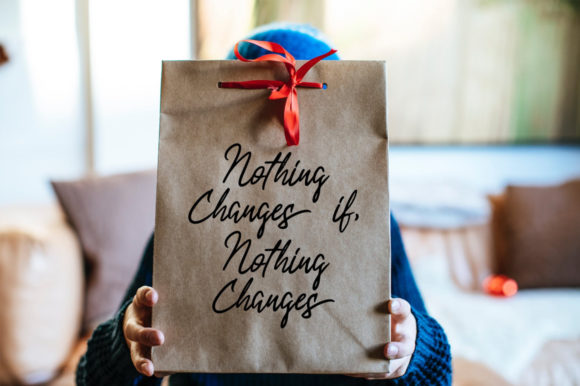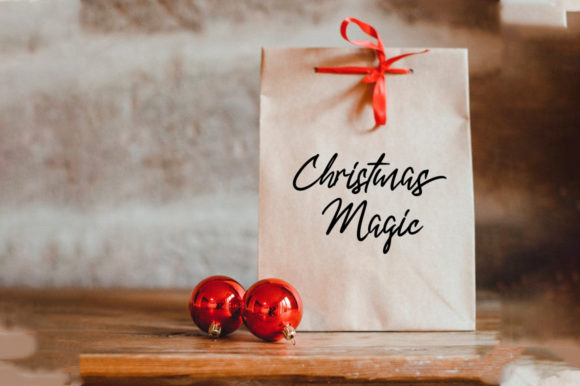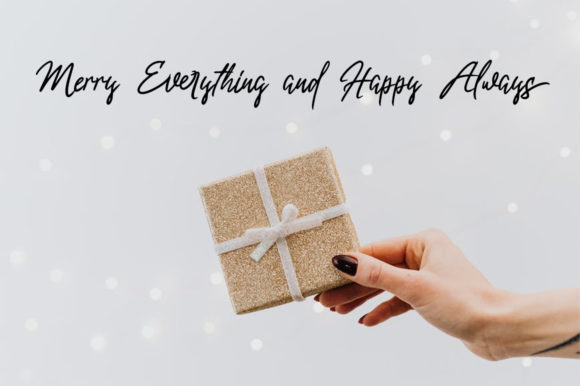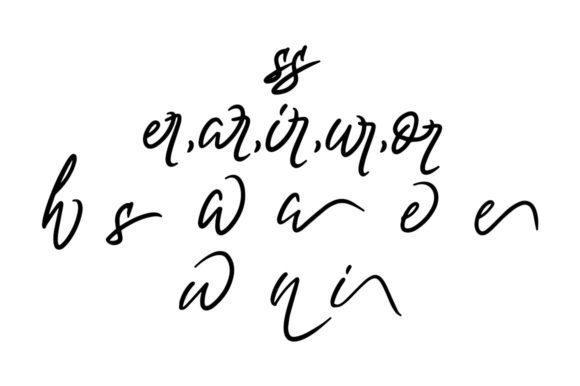
Introduction to Sleeds Font
Sleeds is a lovely Christmas font, with special characters and style.
It looks stunning on various designs, photography, wedding invitations, thank you cards, quotes, greeting cards, logos, business cards more .
Key Features of Sleeds Font